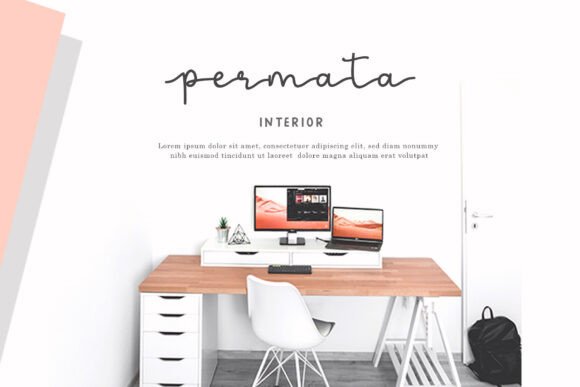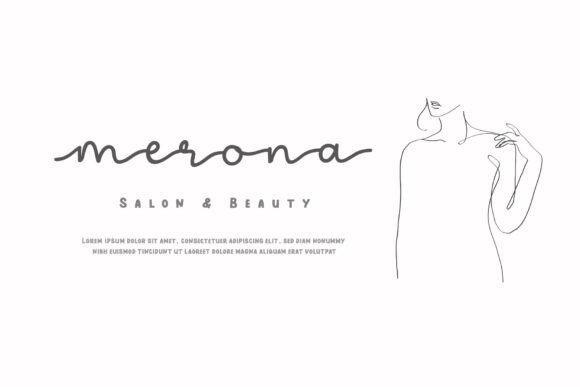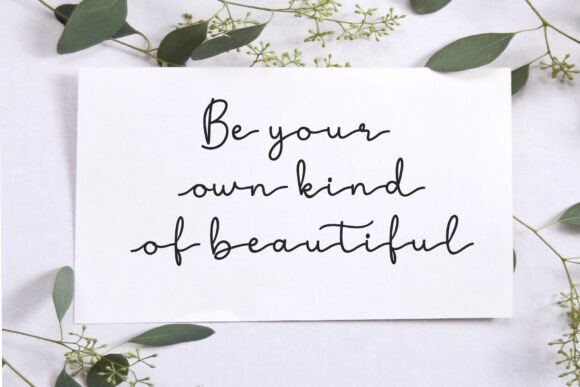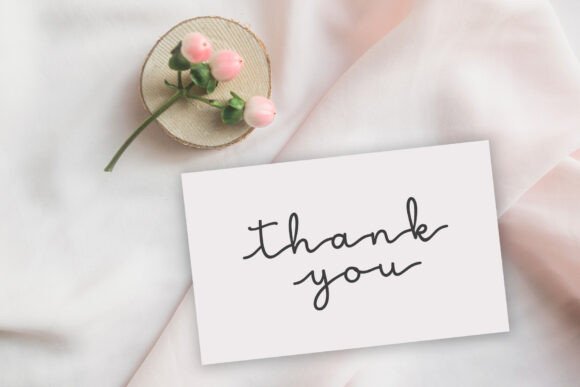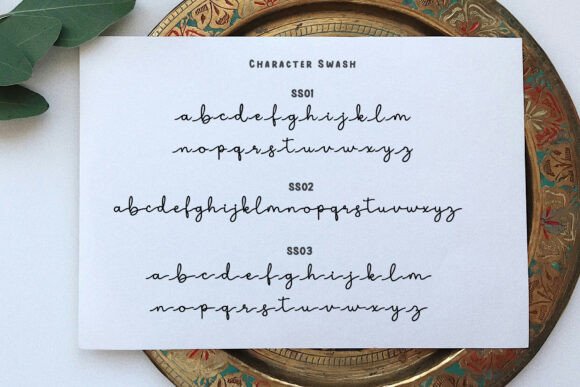
Introducing City Line Font: Elevate Your Designs with Elegance
Are you a designer or crafter looking for a font that exudes elegance and sophistication? Look no further than City Line Font, a beautiful handwritten monoline font that is sure to take your designs to the next level. With its clean, flowing lines and stylish swashes, City Line Font is the perfect choice for a wide range of projects, from branding and packaging to wedding invitations and more.
What Makes City Line Font So Special?
City Line Font is an elegant handwritten monoline font that features clean, flowing lines that give it a modern and sophisticated feel. One of the standout features of this font is its front and back swashes for lowercase letters, which add a touch of whimsy and flair to your designs. Additionally, the font includes swashes to create letter connections, allowing you to create beautiful, flowing text that is sure to capture the attention of your audience.
Key Features of City Line Font
• Elegant Handwritten Monoline Font: City Line Font features a beautiful, handwritten monoline design that is both modern and sophisticated.
• Clean, Flowing Lines: The font’s clean, flowing lines give it a natural, effortless feel that is perfect for a wide range of designs.
• Front and Back Swashes: The font includes front and back swashes for lowercase letters, adding a touch of elegance and whimsy to your designs.
• Letter Connection Swashes: The font also includes swashes to create letter connections, allowing you to create beautiful, flowing text.
Uses for City Line Font
City Line Font is a versatile font that can be used for a wide range of projects, including:
• Branding and Packaging: Use City Line Font to create elegant and sophisticated branding and packaging for your business or product.
• Wedding Invitations: The font’s elegant design makes it perfect for wedding invitations, save-the-dates, and other wedding stationery.
• Signage and Displays: City Line Font is also great for signage and displays, adding a touch of elegance and sophistication to any message or announcement.
• Digital and Print Media: The font can be used for a wide range of digital and print media, including magazines, brochures, and more.
Why Choose City Line Font?
There are many fonts on the market that claim to be elegant and sophisticated, but City Line Font stands out from the crowd. Here are just a few reasons why:
• Unique Design: City Line Font features a unique and stylish design that is sure to set your designs apart from the competition.
• High-Quality: The font is made from high-quality materials, ensuring that it looks great in any size or application.
• Versatile: The font can be used for a wide range of projects, making it a great addition to any designer’s toolkit.
If you’re looking for a font that exudes elegance and sophistication, look no further than City Line Font. With its clean, flowing lines and stylish swashes, this beautiful handwritten monoline font is sure to take your designs to the next level. Whether you’re a designer or crafter, City Line Font is a great choice for any project that requires a touch of elegance and whimsy.